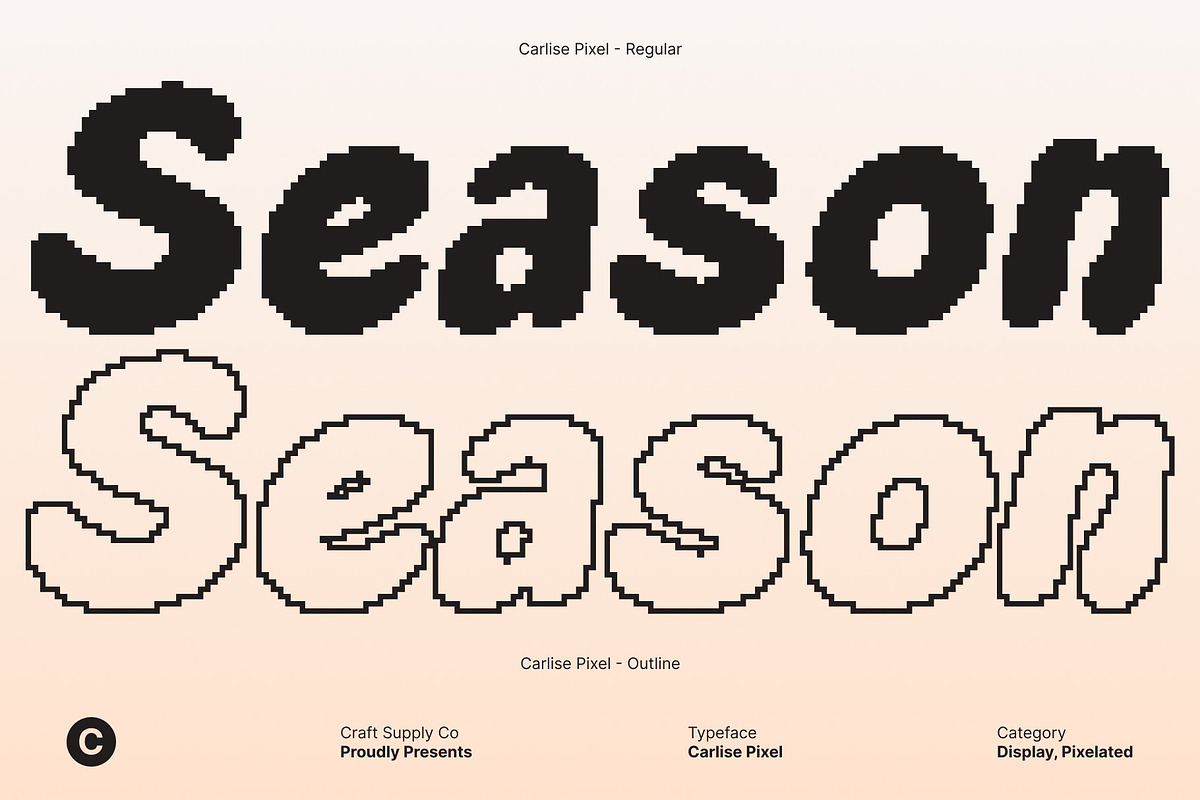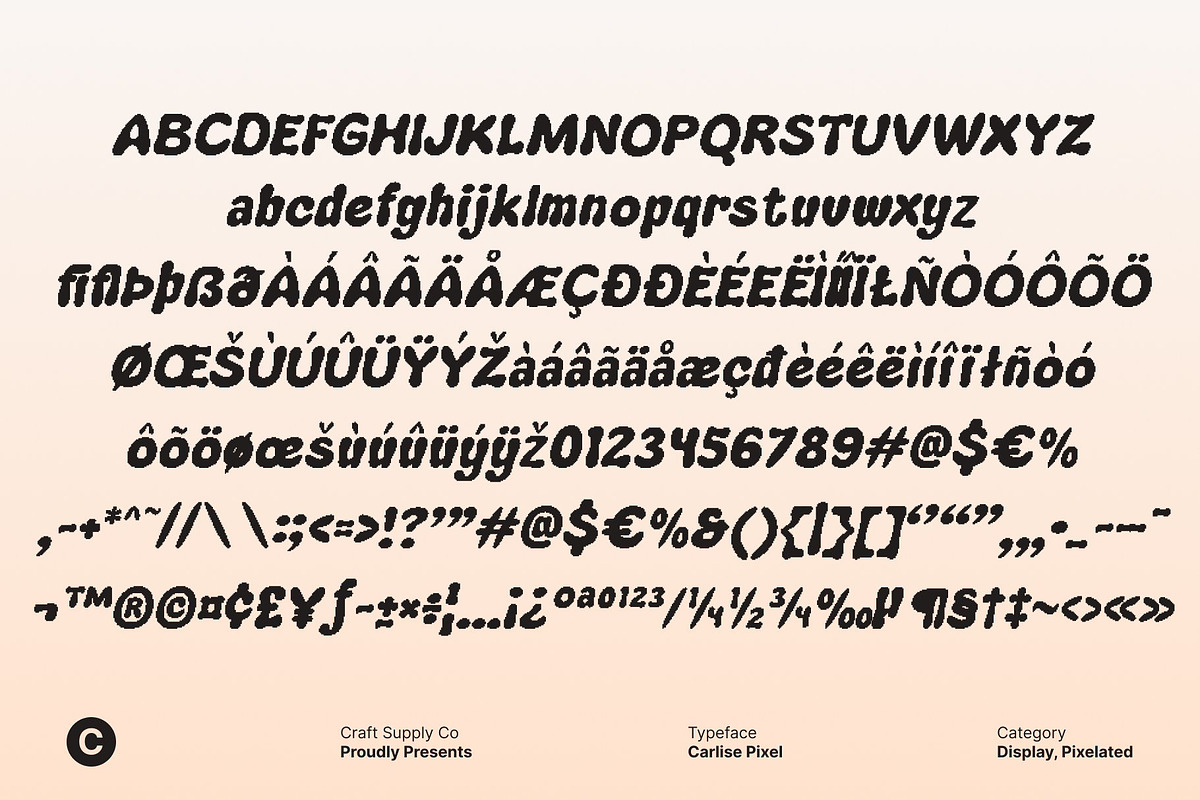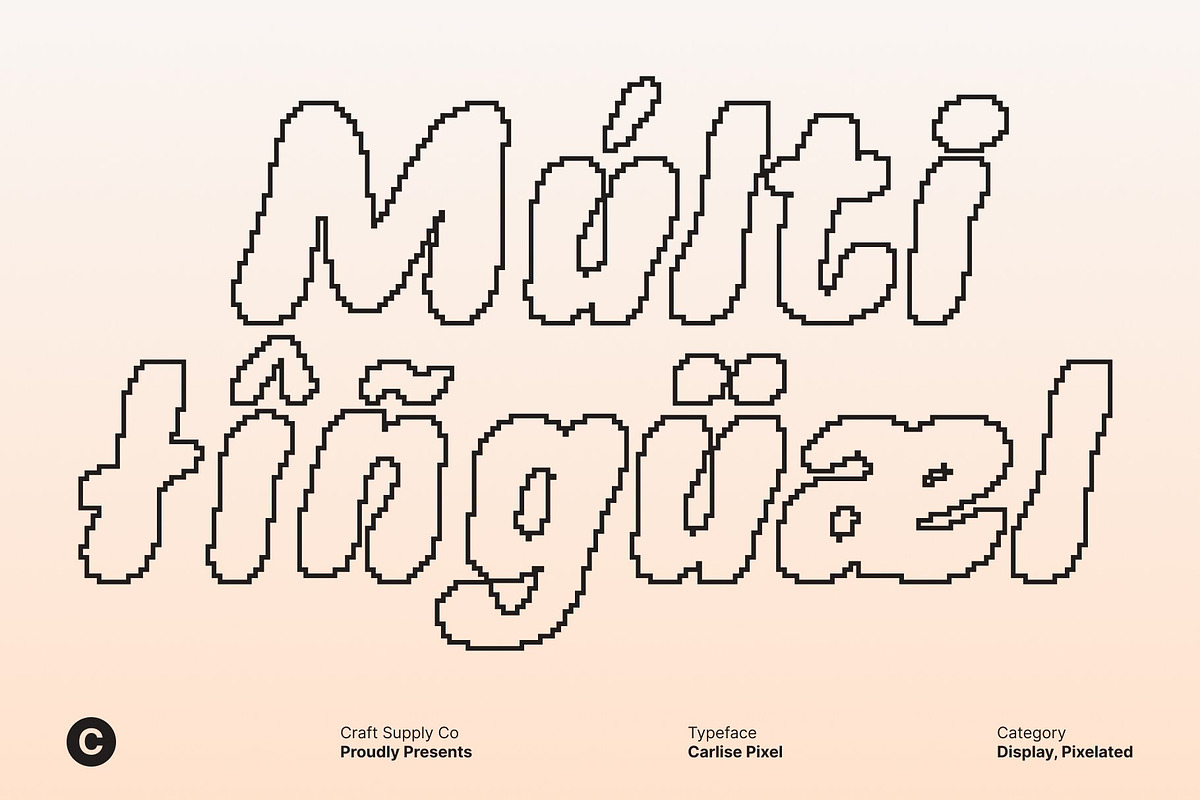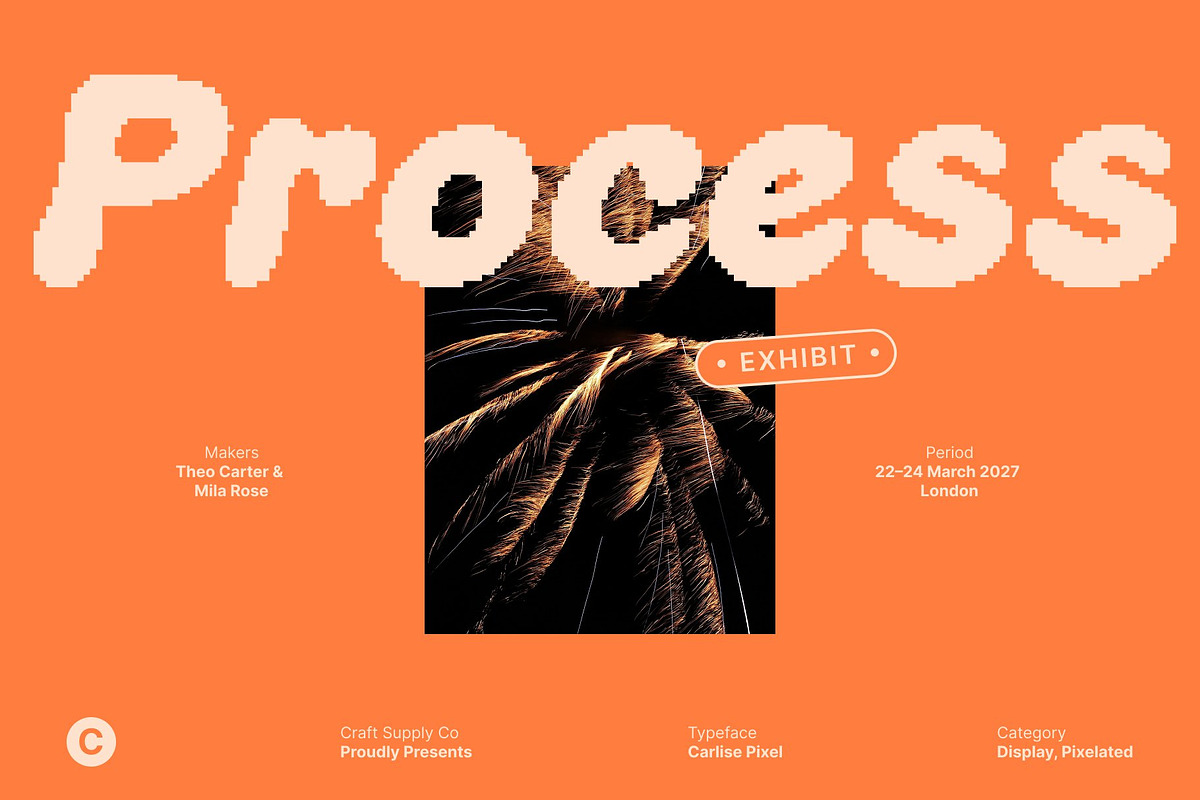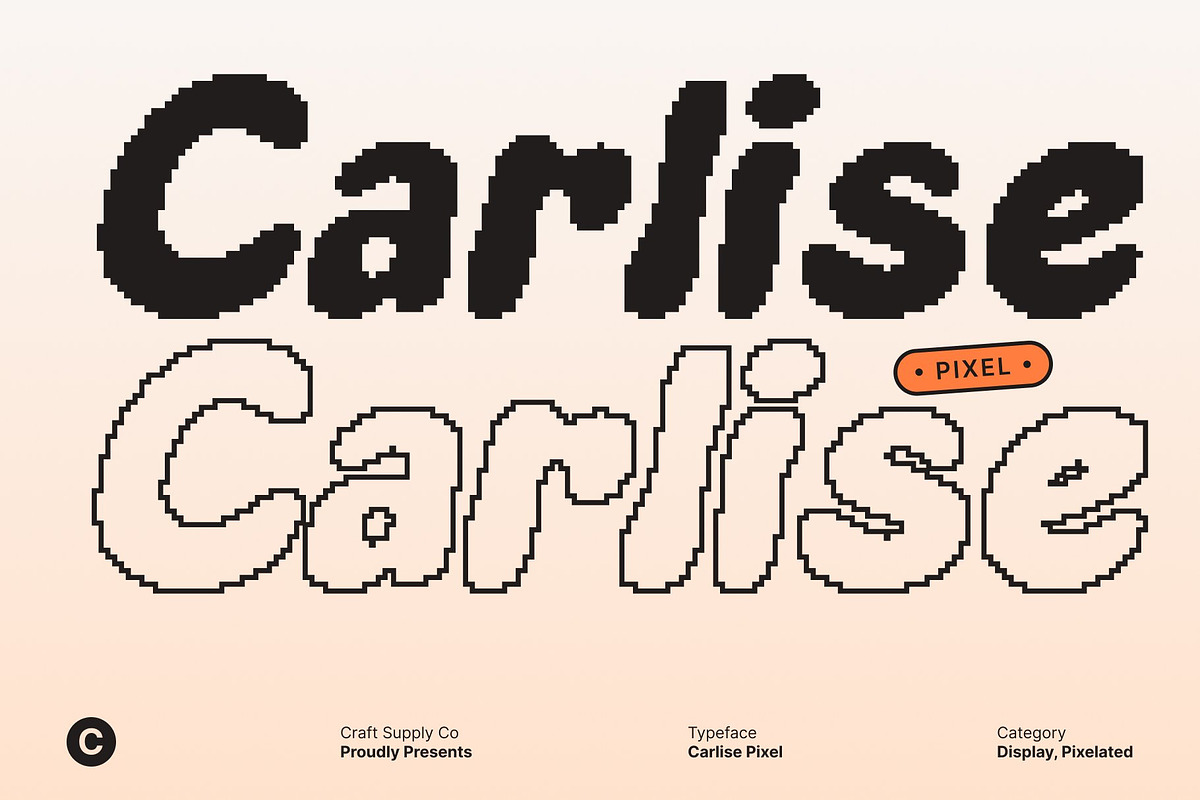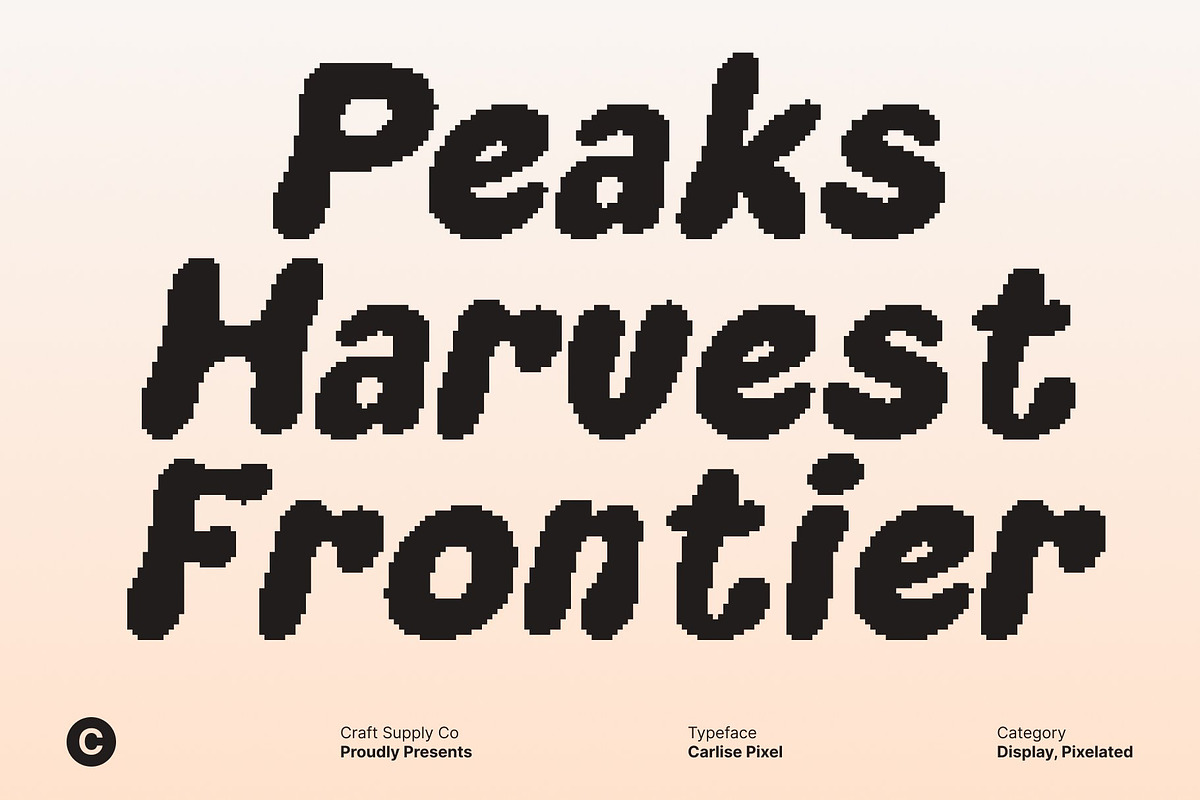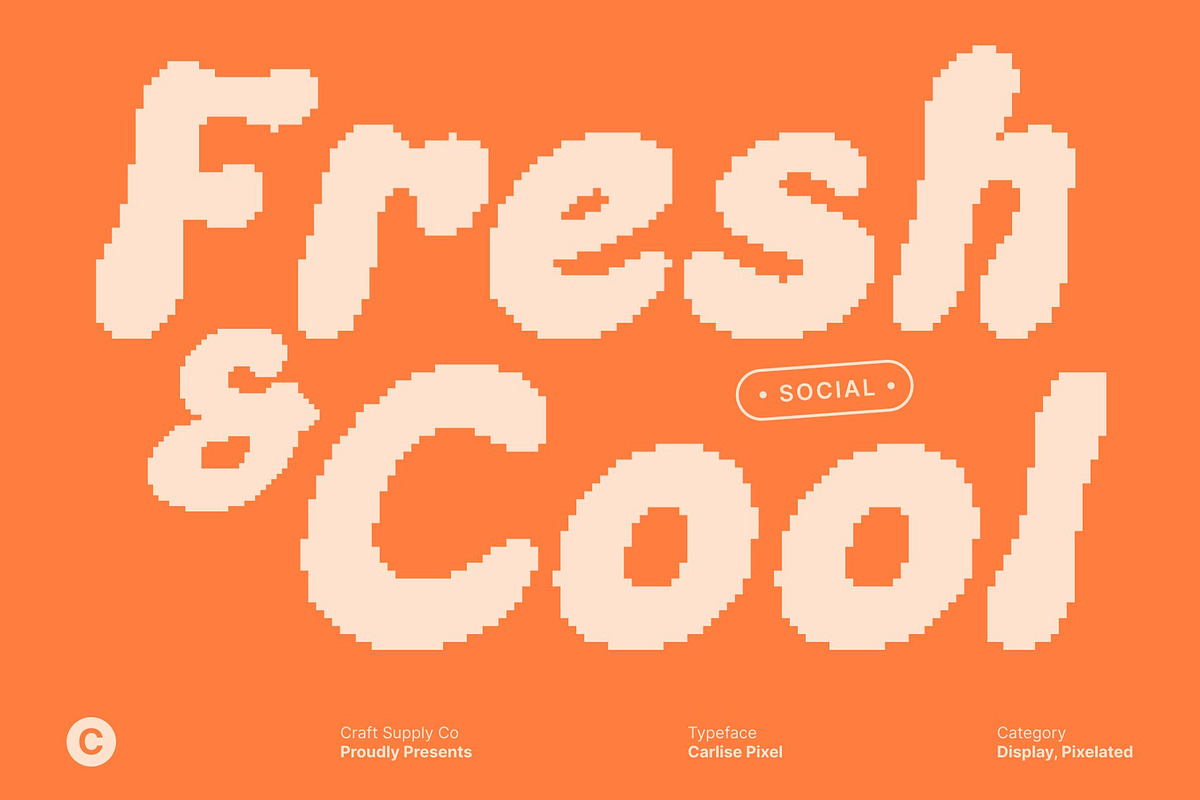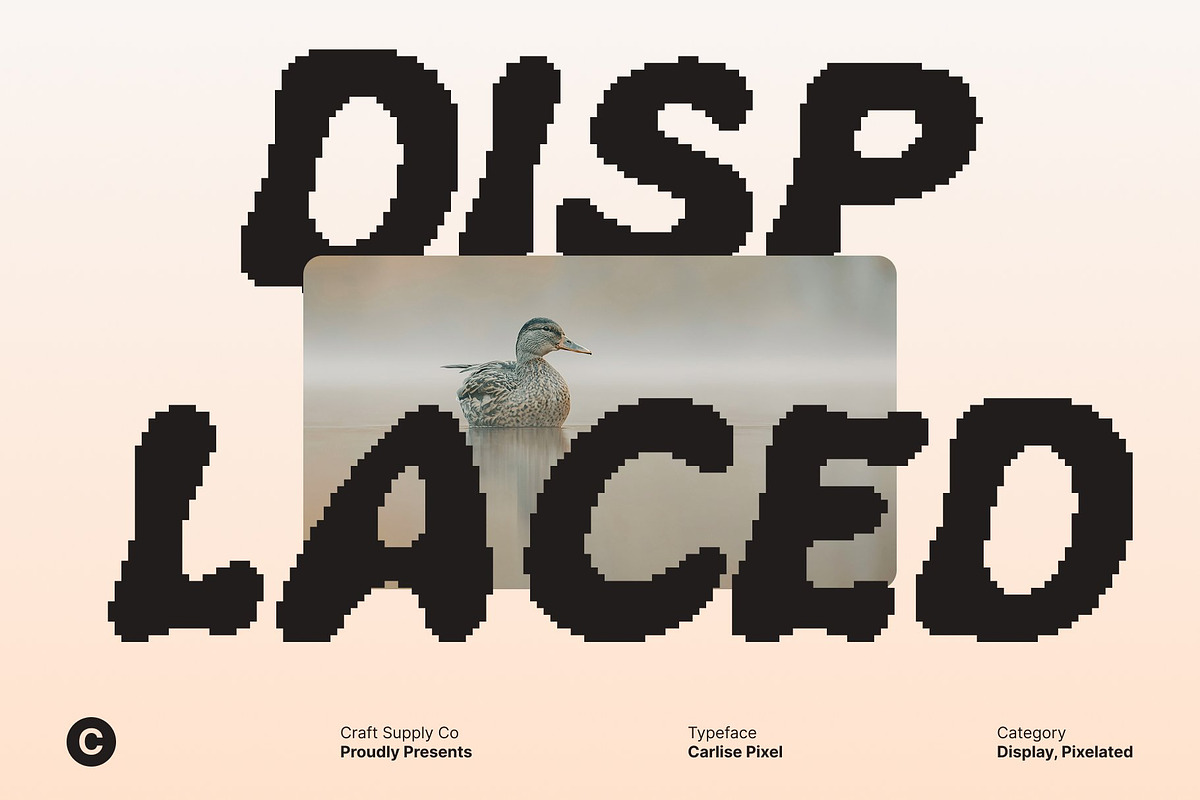
Carlise Pixel
Carlise Pixel – Cute Font for Kids’ Designs
Adorable Aesthetics with Pixel Charm This is a delightful display font designed to captivate children and the young at heart. Its rounded letterforms and pixel-inspired detailing create a playful, cheerful appearance that feels both whimsical and digitally charming. Each character exudes personality, making the font perfect for projects aimed at kids.
Whimsical Typography for Imaginative Projects The whimsical shapes of this font bring stories and visuals to life. Its playful curves and friendly proportions create a typography style that resonates with the imaginative world of children, turning ordinary text into engaging and memorable elements for educational and creative designs.
Vivid, Fun, and Engaging This font adds energy and vibrancy to every composition. The pixel detail enhances the visual appeal, making each letter feel like a lively companion in children’s storybooks, posters, invitations, or playful learning materials. Its design ensures your projects are both fun and attention-grabbing.
Versatile Playfulness Across Media From digital learning apps to printed storybooks and classroom materials, this font adapts seamlessly to a variety of formats. Its combination of cuteness, pixel precision, and lively character makes it a go-to font for designers seeking to infuse joy, creativity, and childlike charm into every project.
- Carlise Pixel Regular
- Carlise Pixel Outline